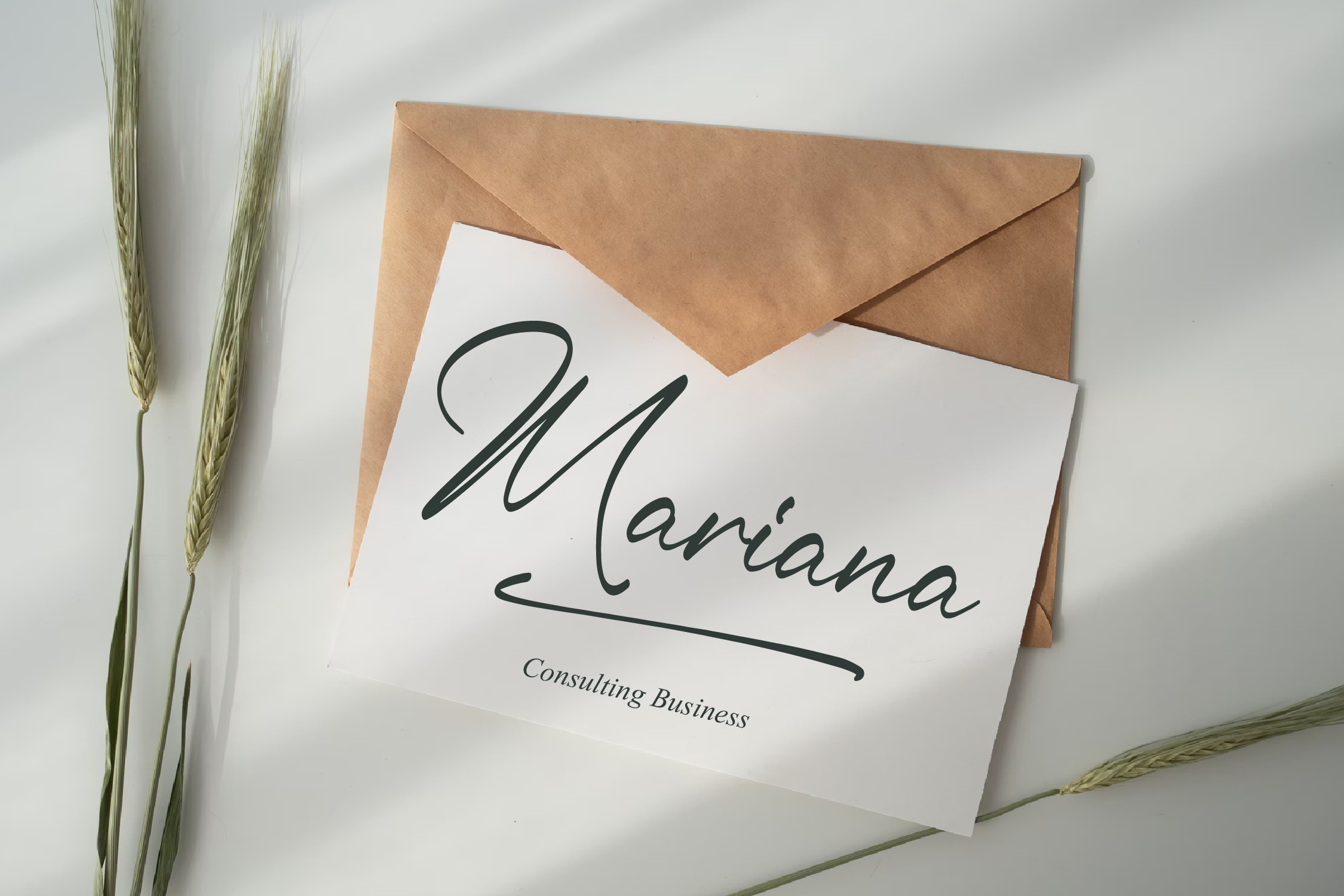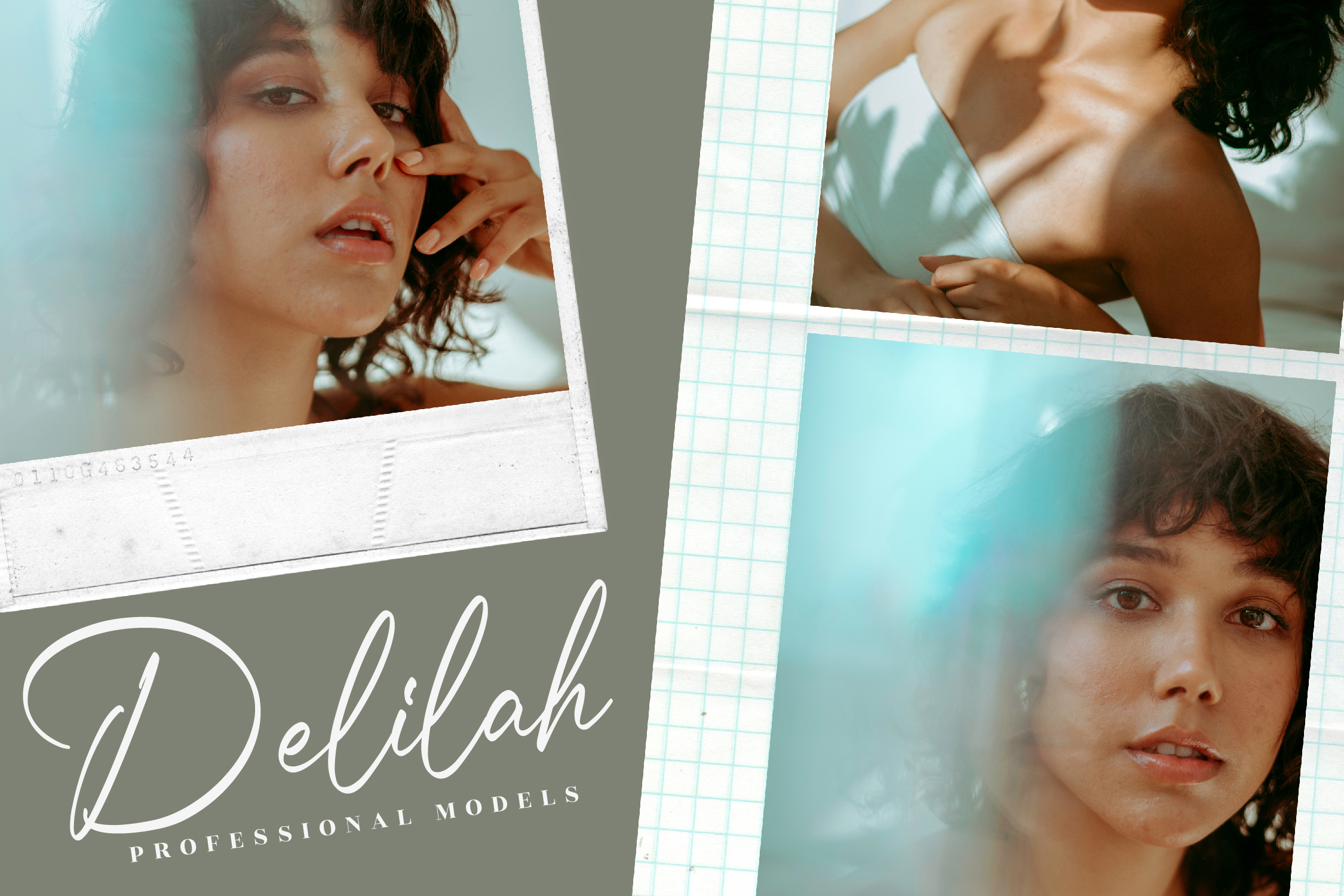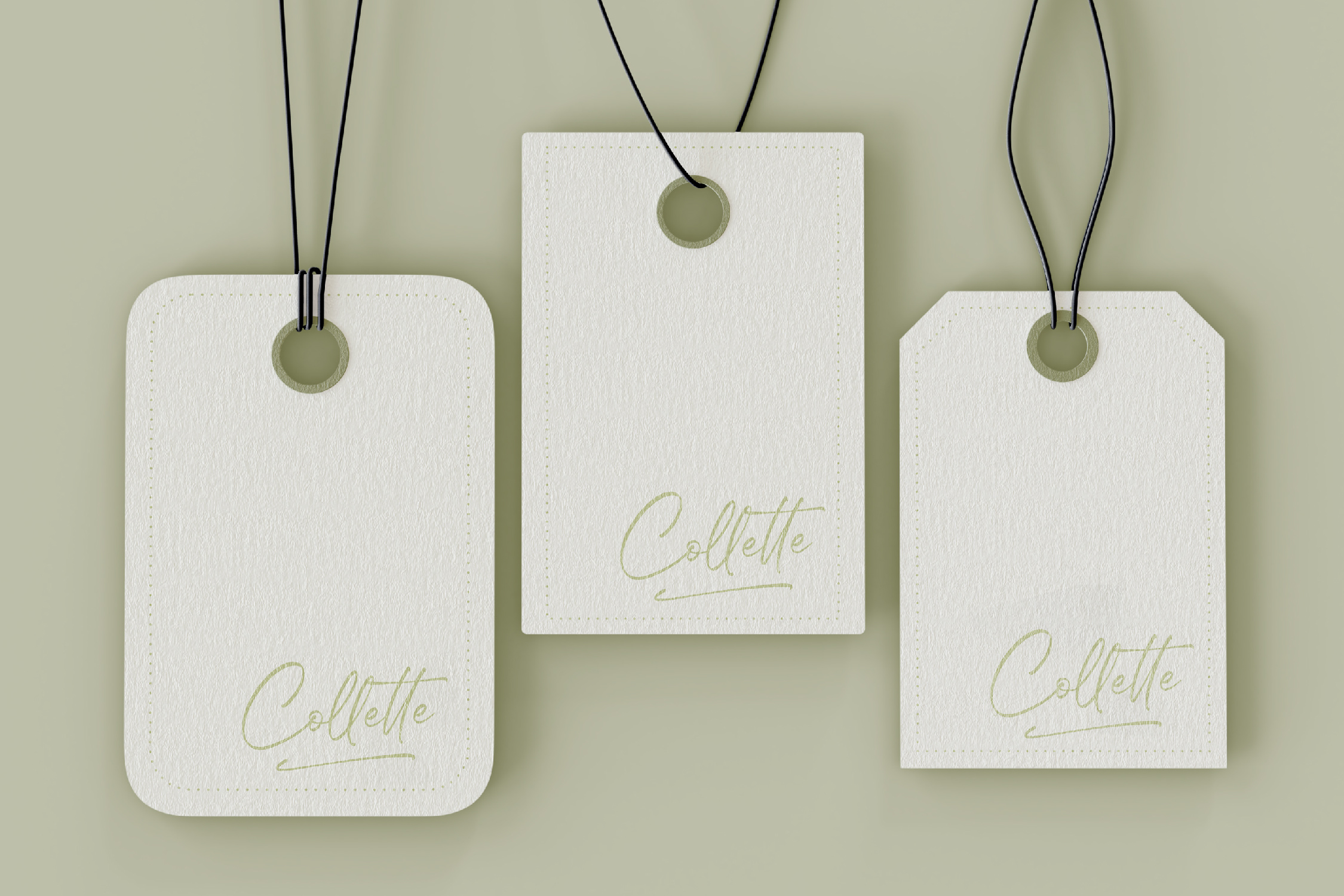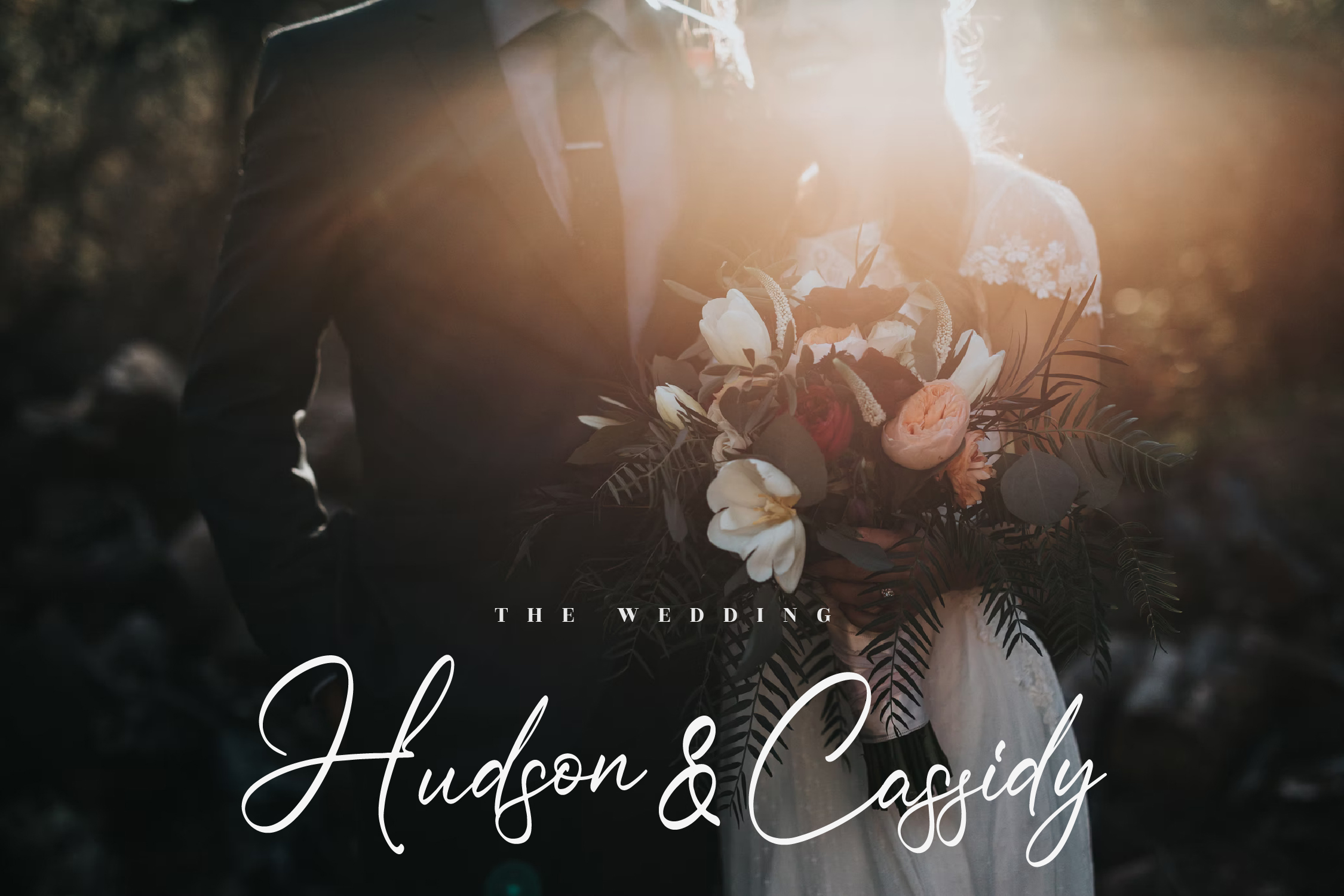
Rasttelina – Modern Handwritten Font
Rasttelina – Modern Handwritten Font, from Glorytype Studio, is a beautiful script font, suitable for any projects such as: logos, branding projects, homeware designs, product packaging, mugs, quotes, posters, shopping bags, t-shirts, book covers, name card, invitation cards, greeting cards, label, photography, watermark, special events, and all your other lovely projects that need a beautiful script taste.